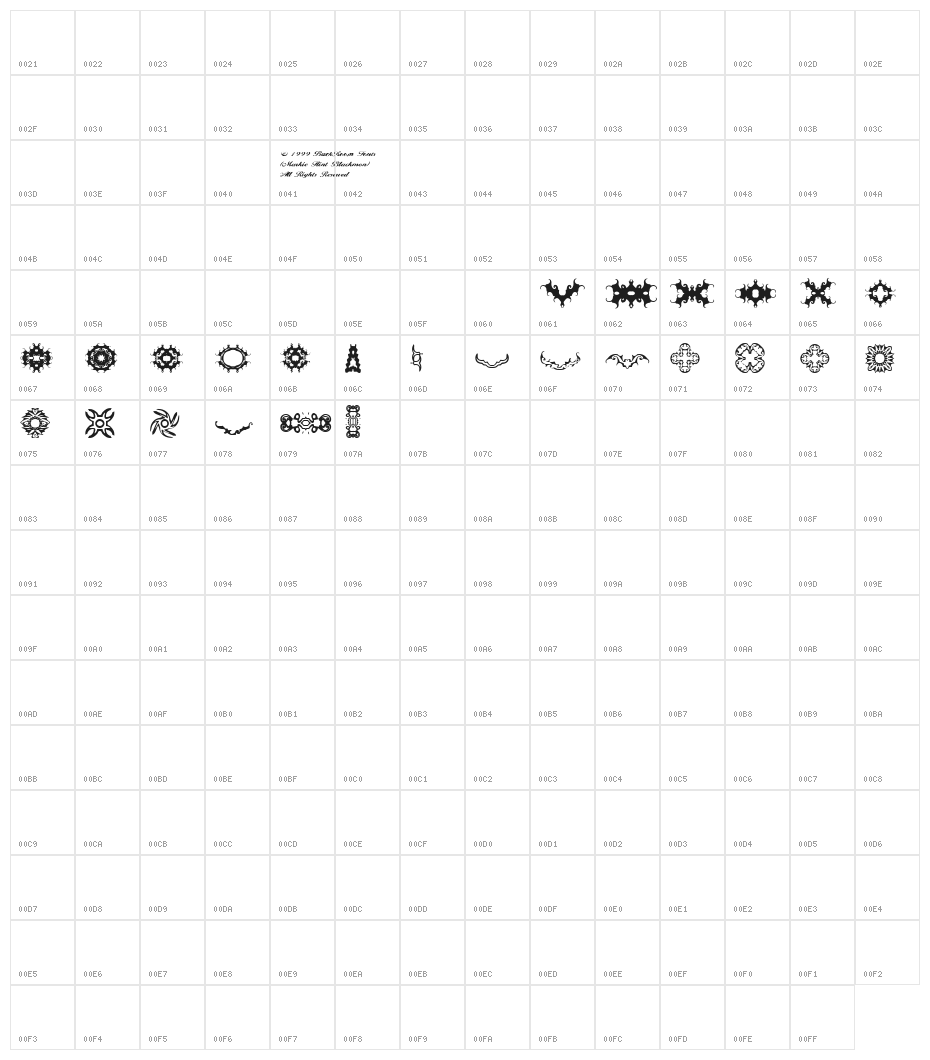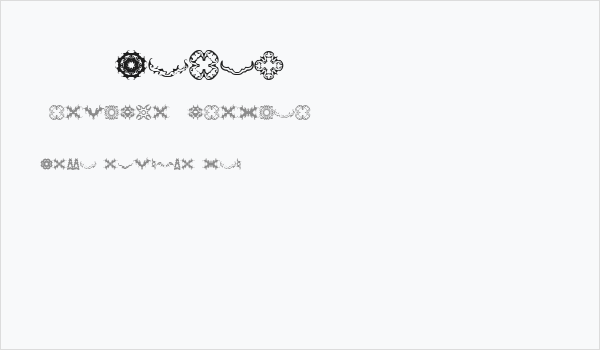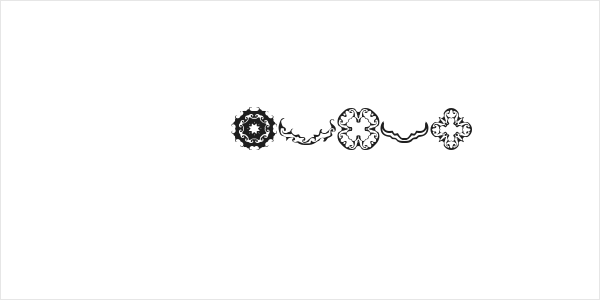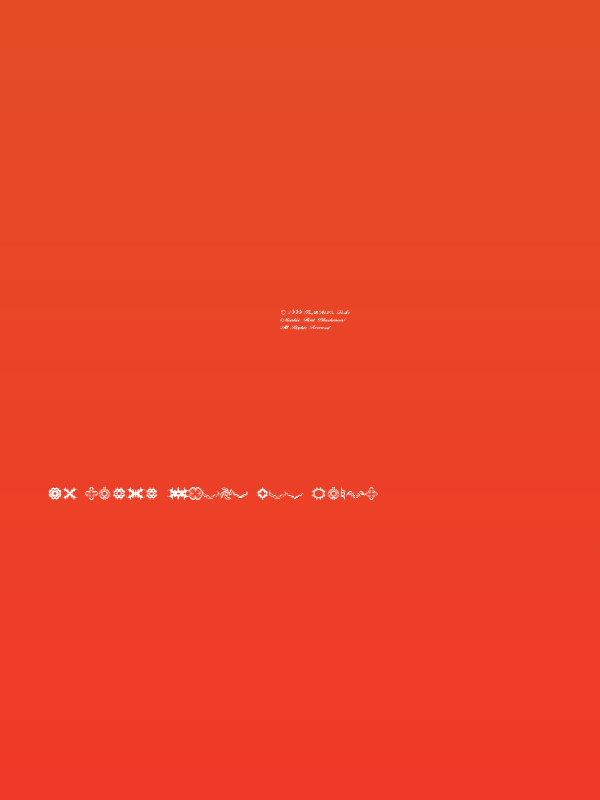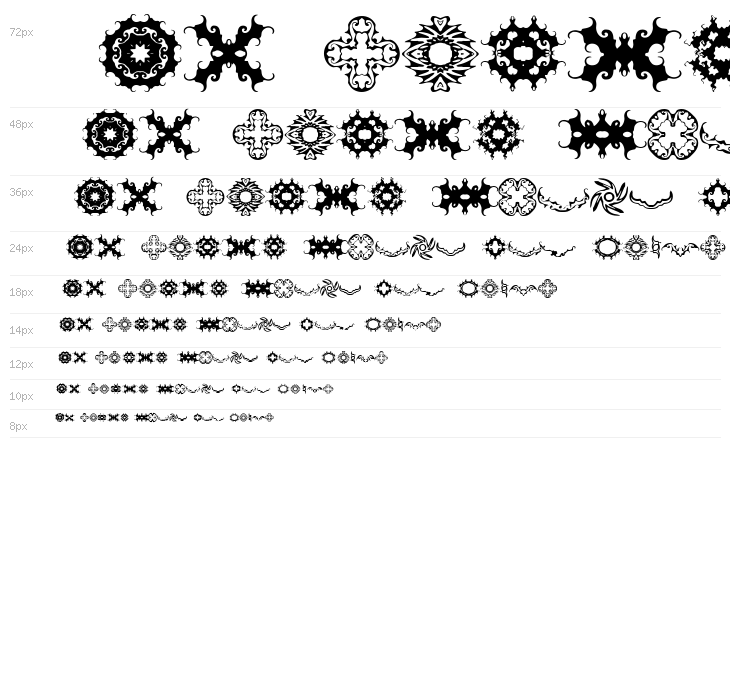
BR Thorns Font
BR Thorns Description
This font features an intricate and decorative style, characterized by ornate and elaborate shapes that resemble thorns and floral patterns. Each character is uniquely designed with a high level of detail, making it more of a decorative element than a traditional font. The design is symmetrical and balanced, with a focus on creating a visually striking appearance. The characters are not meant for standard text but rather for embellishments and artistic projects. The font's unique style makes it suitable for creating borders, frames, or decorative elements in graphic design projects.
| Use Case | Logos, Decorative elements |
| Proposed Projects | Ideal for decorative borders, artistic designs, and embellishments in graphic projects. |